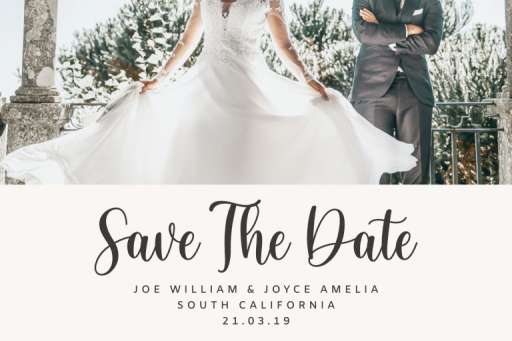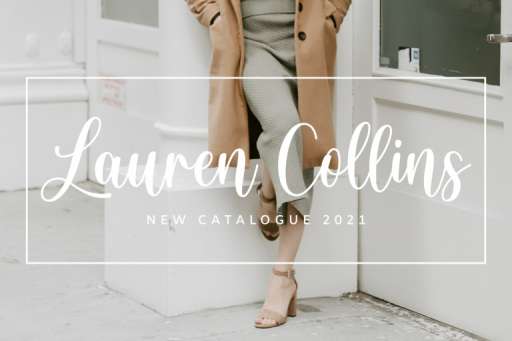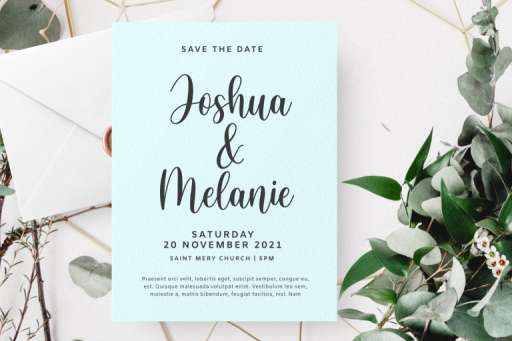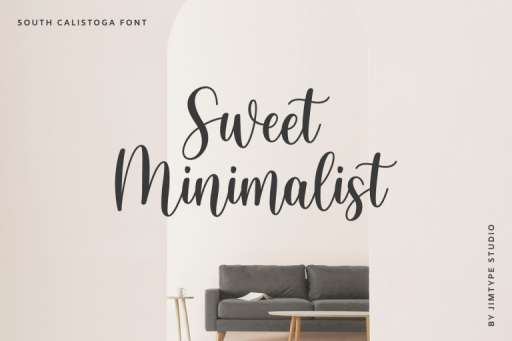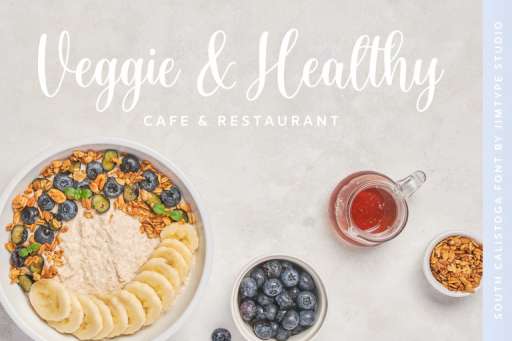
South Calistoga Font - Script Business From Jimtype Studio
South Calistoga Font
South Calistoga – Modern Script Font
South Calistoga is a modern script font. South Calistoga looks beautiful for logo, branding, packaging, books, watermark, Instagram post, social media post, wedding, cards, wedding branding, wedding card, and etc.
South Calistoga features standard characters, PUA encodes, OpenType, and multilingual support.
South Calistoga Features :
• PUA Encode
• Multilingual